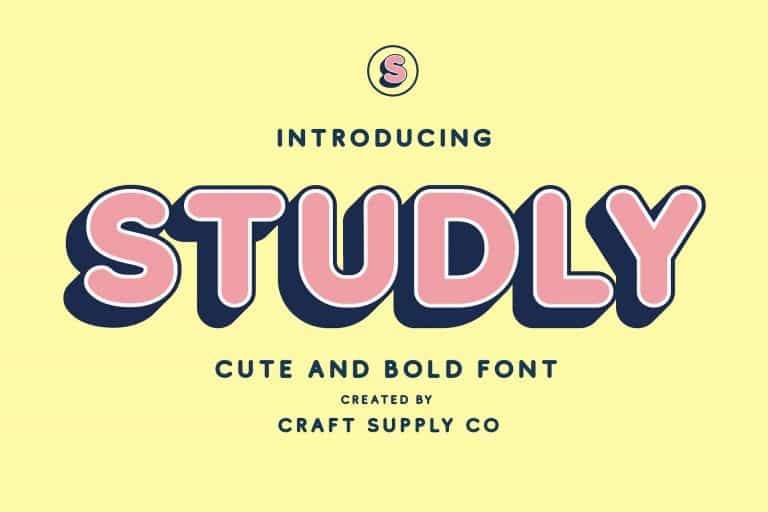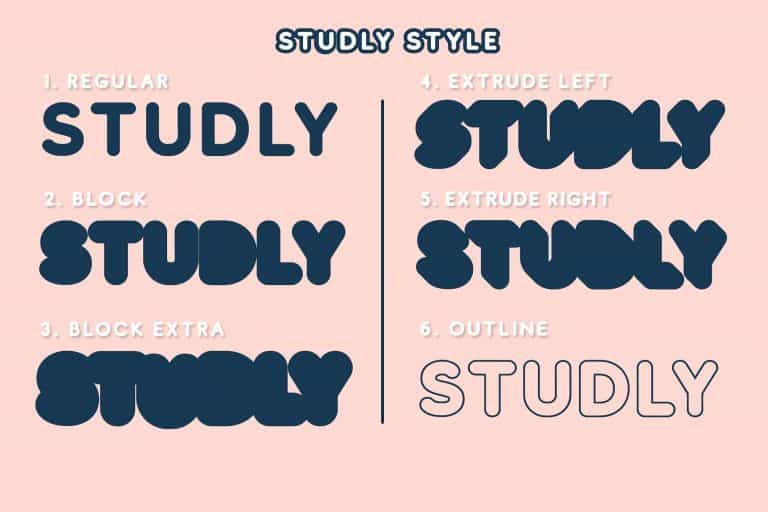
Discover Studly Font Family, part of the Sans Serif Display Graffiti collection—a versatile and unique font perfect for adding a personal touch to your projects. Download it for free and enjoy crafting designs with style, from invitations to social media posts. This font is available exclusively for personal use, giving you the freedom to create without limits. Unlock your creativity with Studly Font Family today!
Studly Typeface is a lively, bold font that will provide character to your project. As a part of the Layered Font Family, Studly has bold lines and solid fonts which are ideal for logos, greeting cards, posters, branding, stationer design, headline, blog header, artwork, quotations, typewriting, art contemporary, envelope lettering, and any other creative effort that needs an attractive and fashionable look.